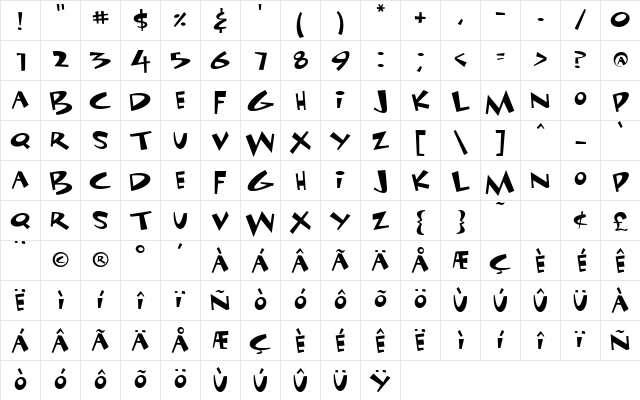
Complete Funhouse Regular glyph index. Displaying only characters natively supported by Funhouse Regular font.
Funhouse has an approachable, lighthearted character - its loose, expressive forms are well-suited to children's content, casual branding, and fun-first design.
Font Pairing: Pairs well with a rounded or humanist sans for body copy, maintaining the friendly tone without relying on Funhouse to carry extended reading.
Pro Tip: Use Funhouse at larger display sizes where its expressive character can land. Pair with a clean, simple sans for body copy to maintain readability.